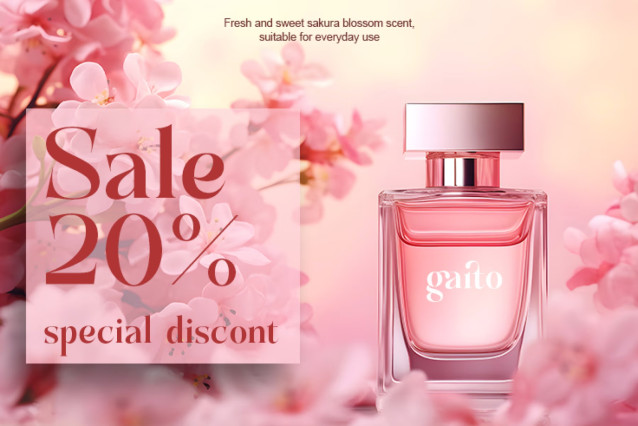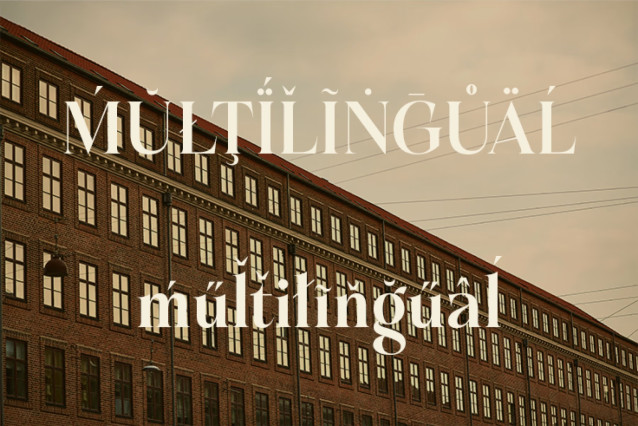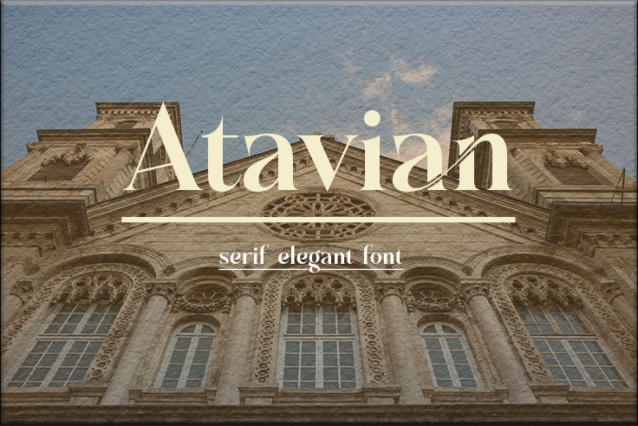
Atavian Serif is an elegant modern serif display font featuring extensive ligatures, multilingual support, and refined high-contrast letterforms. Perfect for branding, editorial, logos, packaging, fashion, luxury, and premium design projects.
Atavian Font